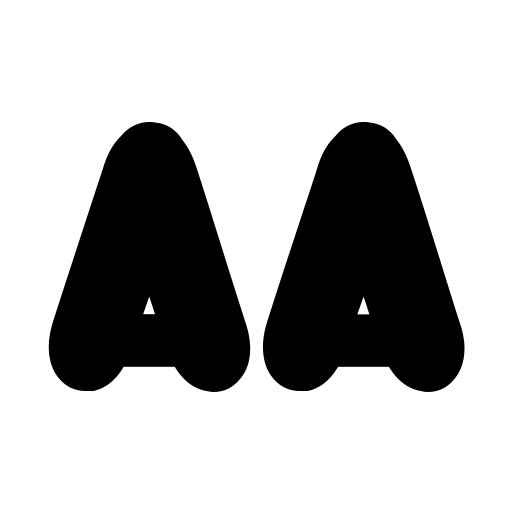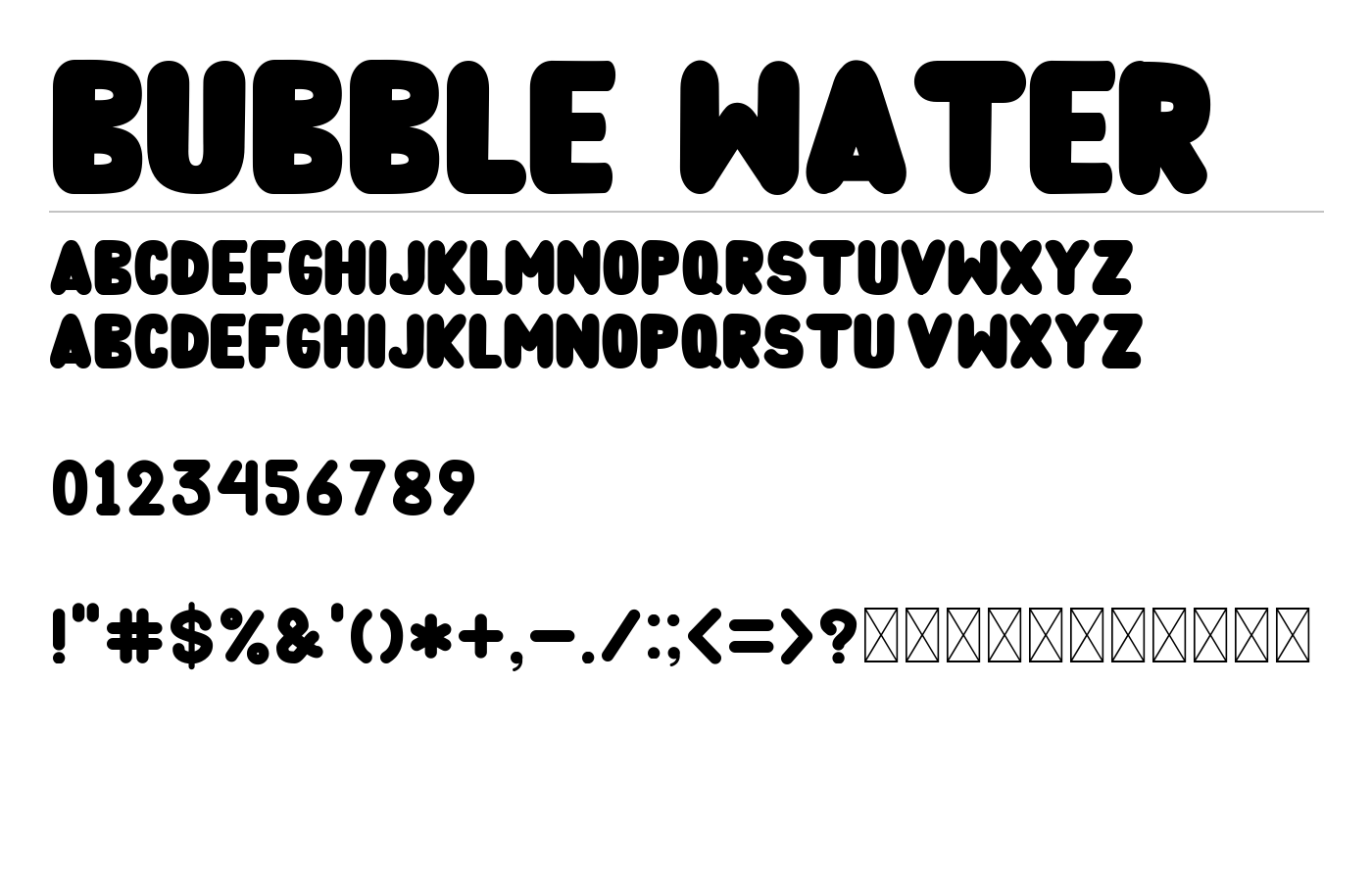
Bubble Water is a playful and bold sans serif font characterized by its rounded, bubble-like letterforms and heavy weight. Its thick, smooth strokes and high x-height give it a friendly and approachable feel, making it ideal for fun, casual designs such as children’s products, party invitations, and playful branding. This font works best in headlines and logos where a lively and youthful vibe is desired.
Bubble Water Font
About Bubble Water Font
| Font family | Bubble Water Font |
| Designer | Savira Faeyza Art |